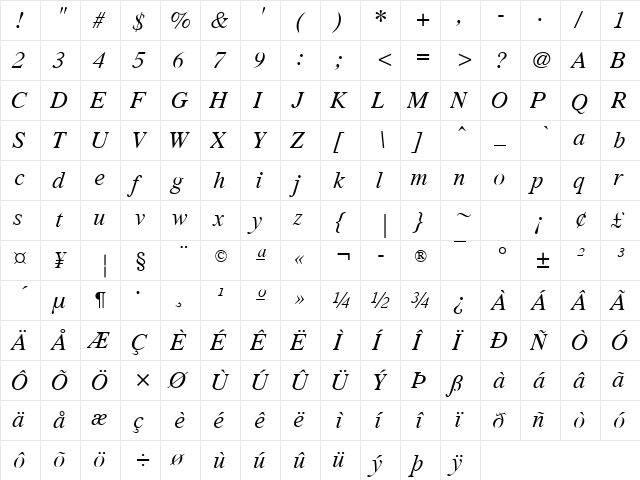
PC Tennessee Italic
Design Context for PC Tennessee Typeface
PC Tennessee is a composed and adaptable typeface that performs quietly and consistently across a wide range of design contexts. Its italic angle brings a sense of urgency and motion to the letterforms.
Pro Tip: Try PC Tennessee for annotation and caption copy alongside an upright companion — the contrast in angle creates a dynamic but ordered typographic system.